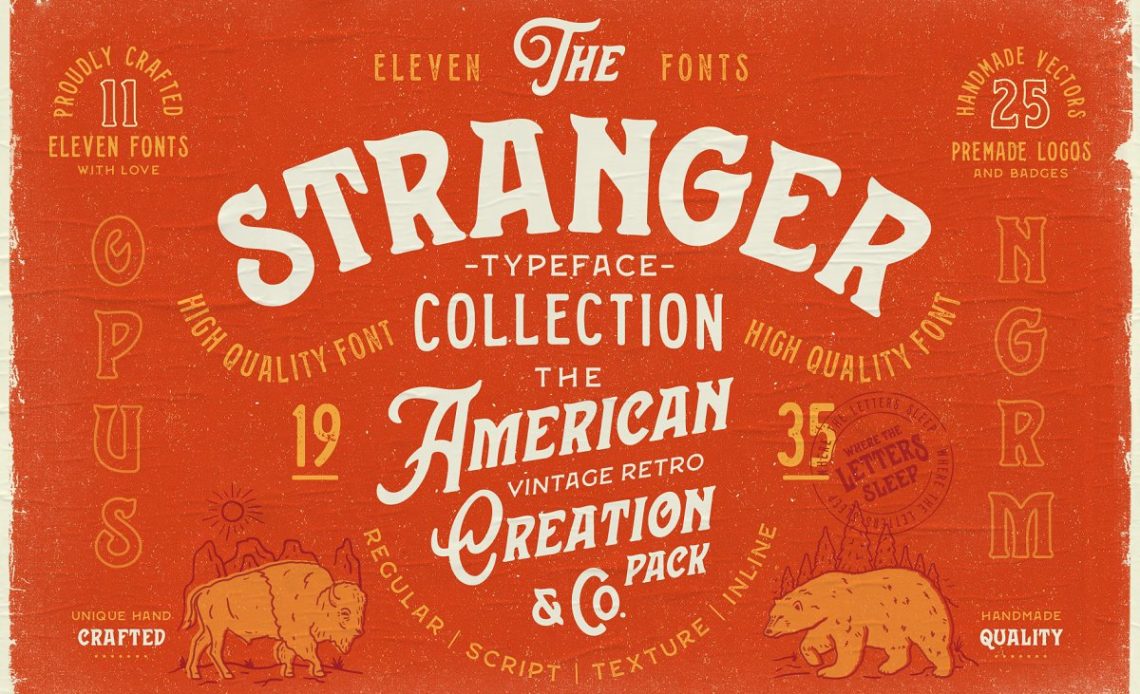
Are you tired of using the same old boring fonts in your designs? Look no further than the Stranger Font Collection + Extras! Created by Gabriel Oviedo, this font family is the perfect blend of old and new, with a unique personality that will make your designs stand out from the crowd.
Inspired by vintage denim labels, old jeans ads, the old west, and apothecary elements, the STRANGER Font Collection is a reversion of the Bohemian Alchemist font, but with more solid and varied fonts to combine. The collection includes Stranger Regular, Texture, Inline, Script, Script Texture, Script Inline, Slim, Slim Texture, Wide, Wide Texture, and Drawings - all available in OTF, TTF, and WOFF formats.
But that's not all - the Stranger Font Collection also includes 25 premade badges and a pack of 27 illustrations to add even more personality to your designs. And with multilingual support, you can use the Stranger fonts in a variety of languages.
Whether you're designing logos, flyers, invitations, labels, clothes, or anything else, the Stranger Font Collection has you covered. This font family is perfect for anyone looking to add a touch of vintage charm and personality to their designs.
But don't just take our word for it - Stranger is being used by talented designers around the world, like Real Fun Wow! and the official merchandise of Stranger Things 4. So why not join them and elevate your designs to the next level?